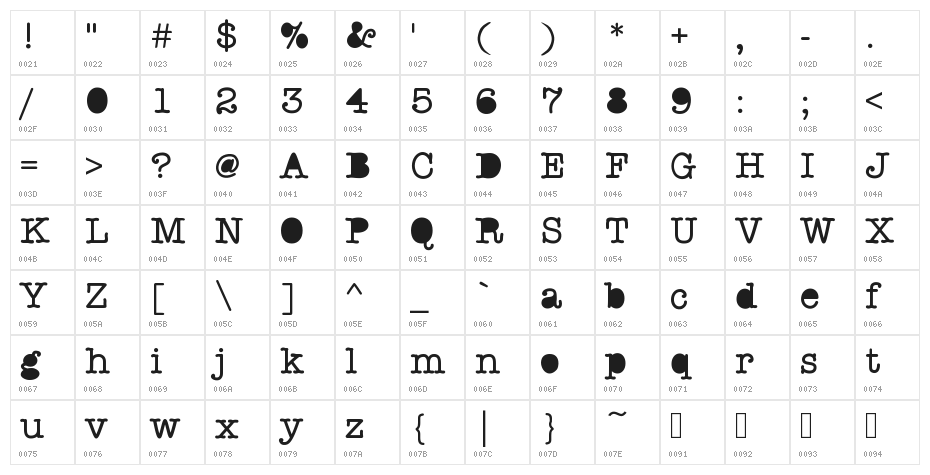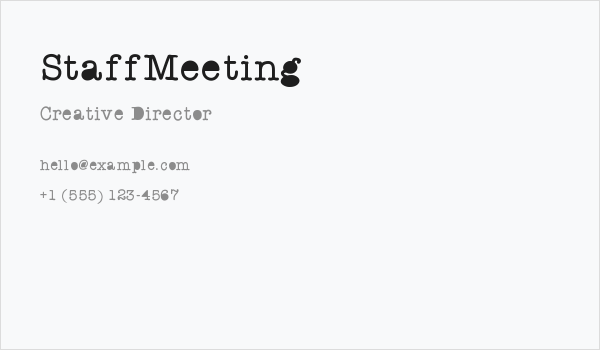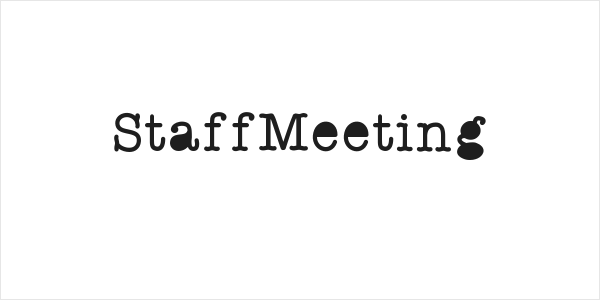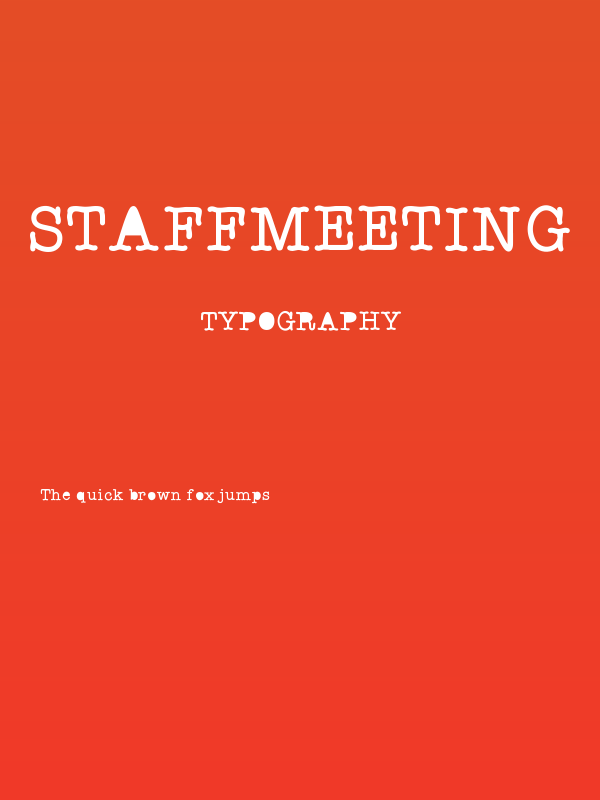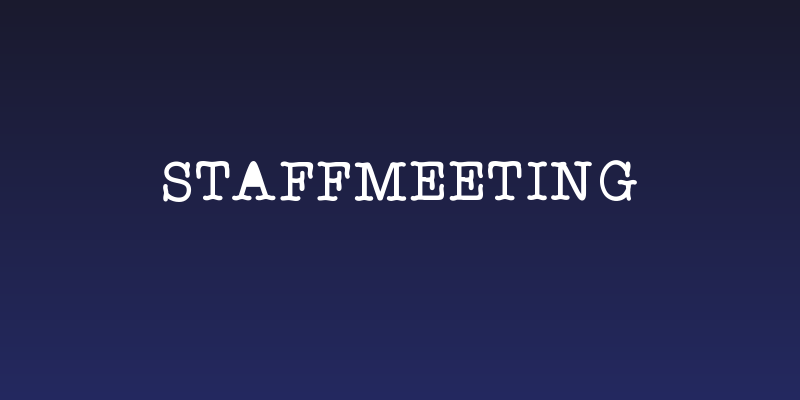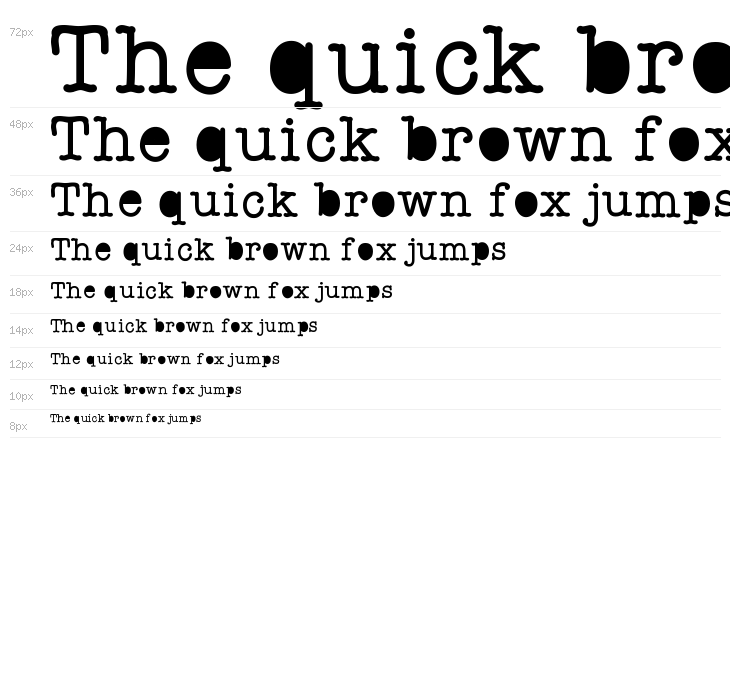
StaffMeeting Font
StaffMeeting Description
This font features a bold and playful design with a distinct slab serif style. The characters are rounded and have a slightly whimsical appearance, making them stand out with a unique charm. The uppercase letters are bold and commanding, while the lowercase letters maintain a consistent style with a touch of softness. The numerals are clear and easy to read, with a similar boldness that matches the alphabet. Special characters are well-integrated, maintaining the overall aesthetic of the font. This font is perfect for projects that require a fun and engaging look, while still being highly legible.
Overall StylePlayful, Decorative
Proposed ProjectsIdeal for children's books, playful branding, posters, and creative headlines.